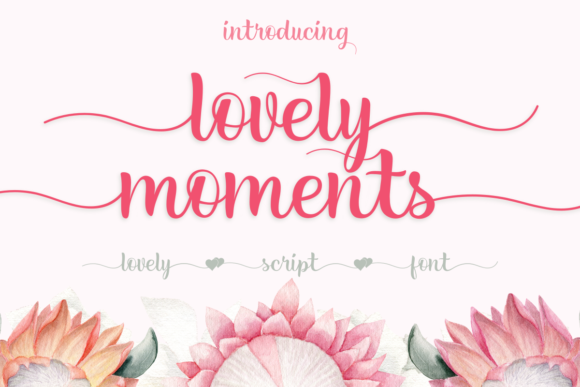
Venture into the realm of elegance and charm with Lovely Moments Font, a captivating script font that will transform your designs into works of art. Immerse yourself in the beauty of its flowing lines and delicate curves, crafted with the utmost care to evoke a sense of romance and allure.
Let your imagination soar as you explore the endless possibilities of Lovely Moments Font. Its enchanting swashes and alternates add a touch of whimsy and playfulness to your creations, while its PUA encoding ensures effortless access to a world of romantic glyphs and swashes. Unleash your creativity and bring your designs to life with this font's captivating charm.
With Lovely Moments Font, your words will resonate with an emotional depth that captivates your audience. Its carefully crafted alternate glyphs and ligatures add an extra layer of sophistication and finesse, transforming your designs into polished masterpieces. Experience the joy of creating designs that leave a lasting impression, capturing hearts and imaginations with every stroke.
Lovely Moments Font is the perfect choice for designers seeking a font that exudes elegance and romance. Its versatility knows no bounds, whether you're crafting logos that radiate charm, designing wedding invitations that evoke heartfelt emotions, or creating social media graphics that captivate your followers. Embark on a creative journey where every project is a testament to your artistic flair and passion for design excellence.
Discover the allure of Lovely Moments Font and elevate your designs to new heights of sophistication. Its enchanting beauty will leave an indelible mark on your audience, creating a connection that transcends words. Embrace the power of this font and watch as your designs blossom into captivating works of art.